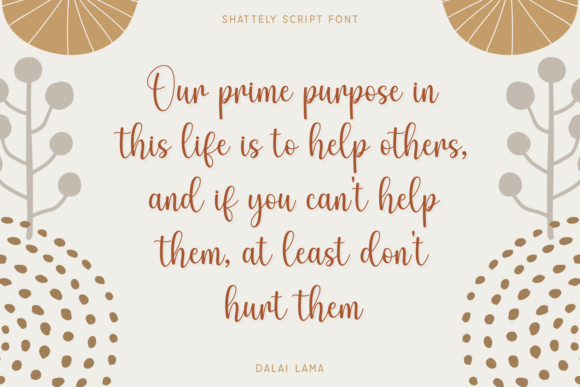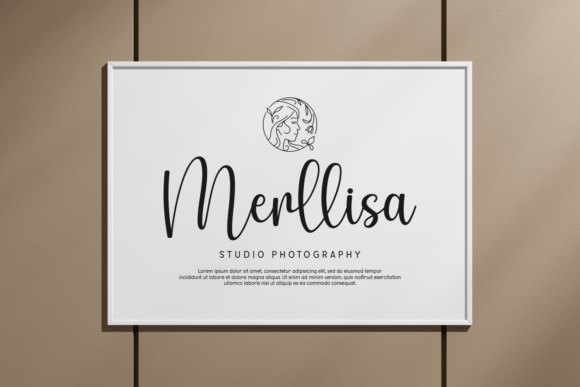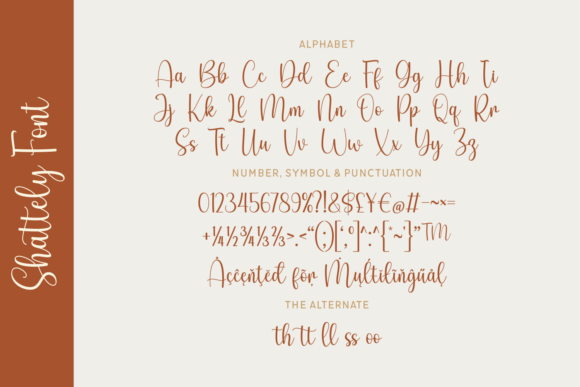
Introduction to Shattely Font
Shattely is a stunning script font that boasts a modern yet timeless appeal.
Its bold strokes and elegant swashes bring a dynamic energy to designs, making it perfect for logos, brand names, product packaging, invitations, and more With its versatility and unique variations, Shattely adds a sophisticated and personal touch to any project.
Key Features of Shattely Font
Why Choose Shattely Font?
Shattely Font offers exceptional quality and versatility, making it a valuable addition to your design toolkit. Whether you’re creating for personal projects or commercial use, Shattely Font delivers professional results.